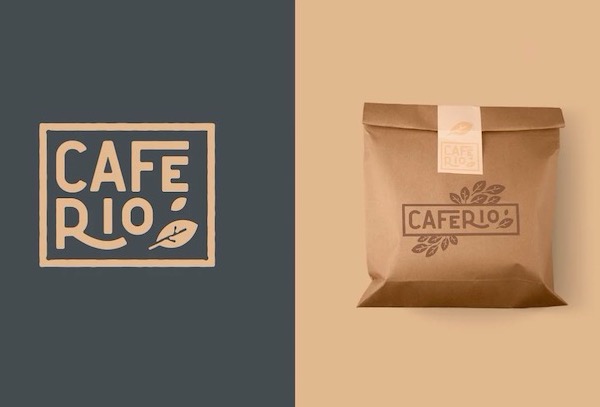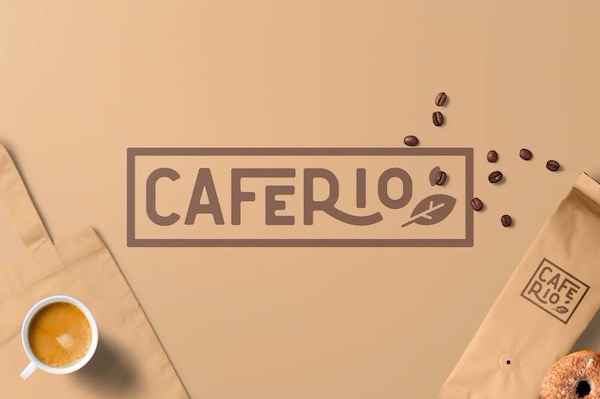
Cafe Rio Font or there is a different name, The Florest Font. It’s a neat and elegant sans serif font that has a retro & classic sans typeface. This basic font was created and shared by NEWFLIX.Bro along with smooth edges and the touch of many cool alternate characters make this basic font look stylish and classy. It contains an uppercase alphabet with numbers and symbols. Designed with Stylistic Alternates and Contextual Alternate in some characters that allow you to mix and match pairs of letters to fit your design. Perfect for many different projects: quotes, blog header, poster, wedding, branding, logo, fashion, apparel, letter, invitation, stationery, etc